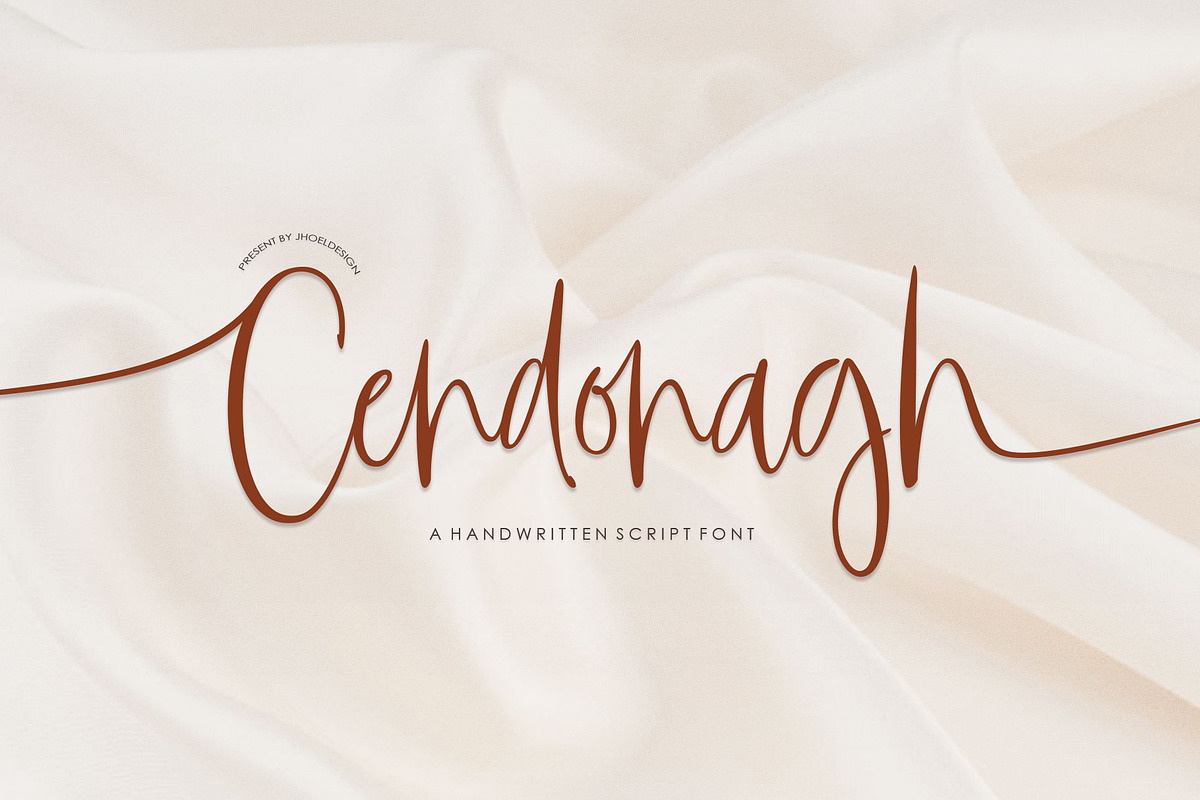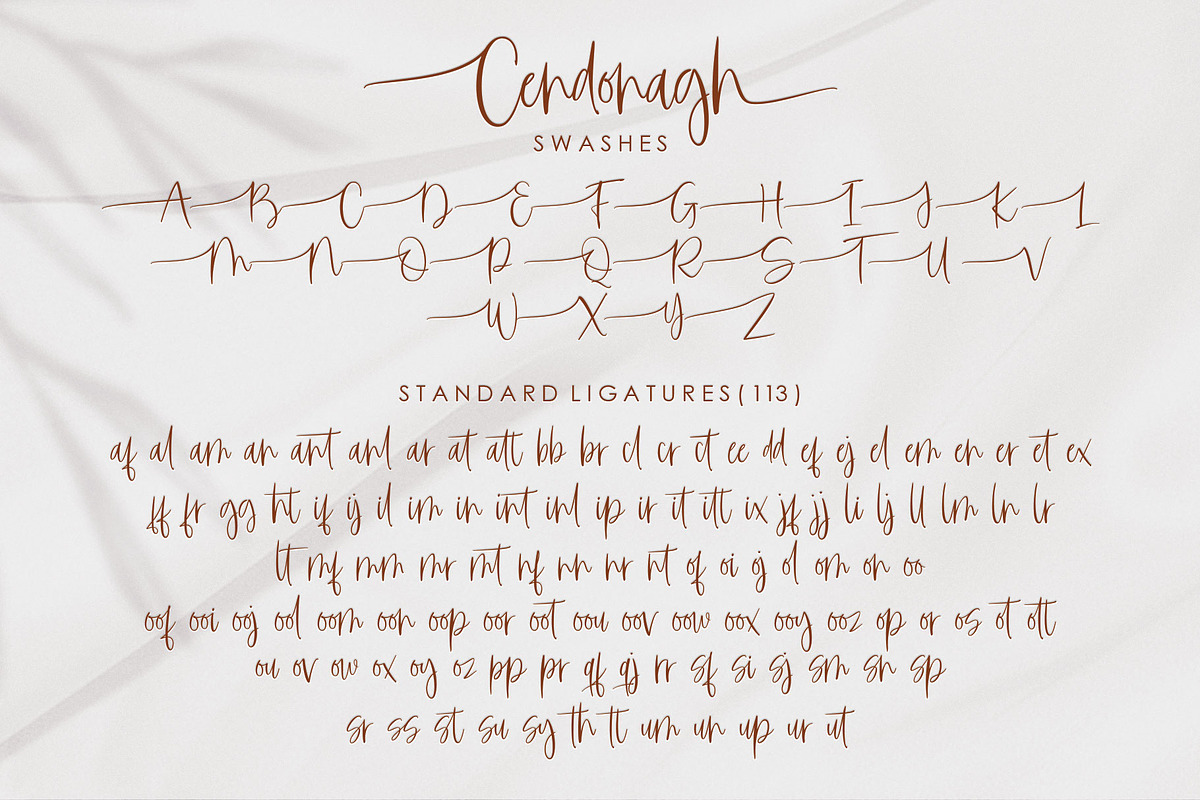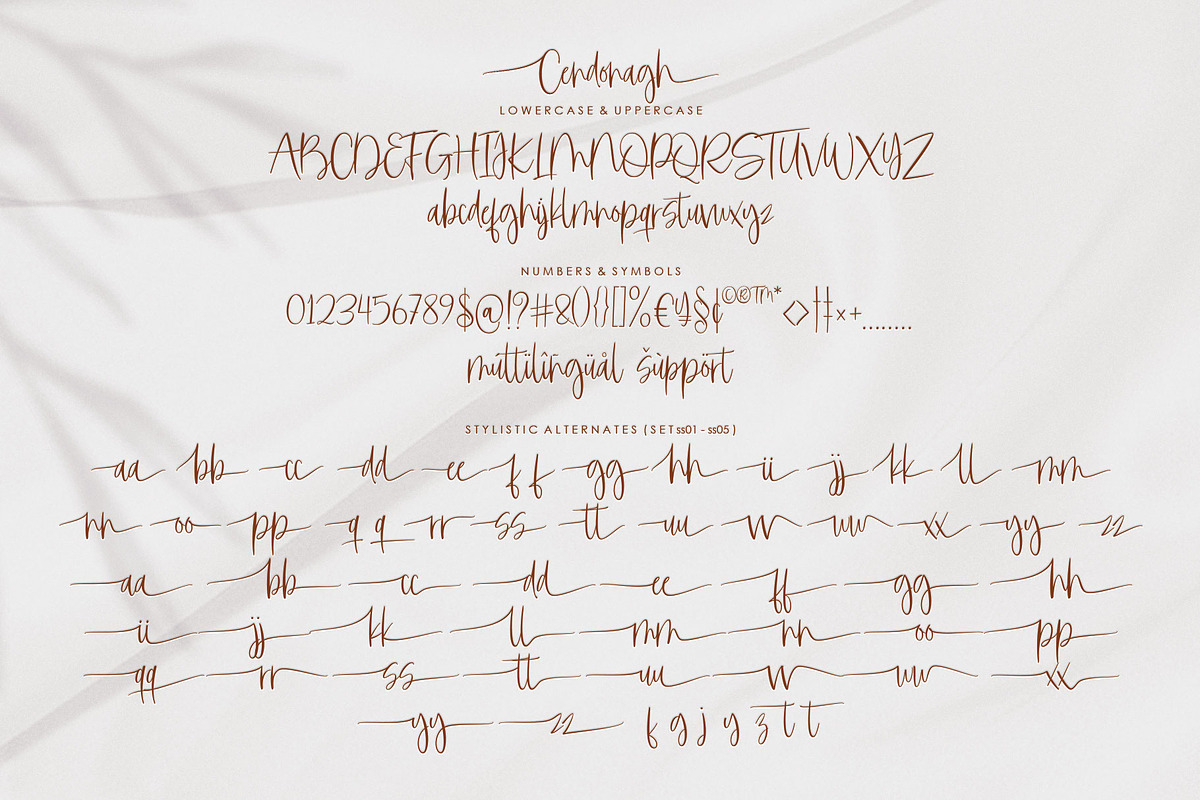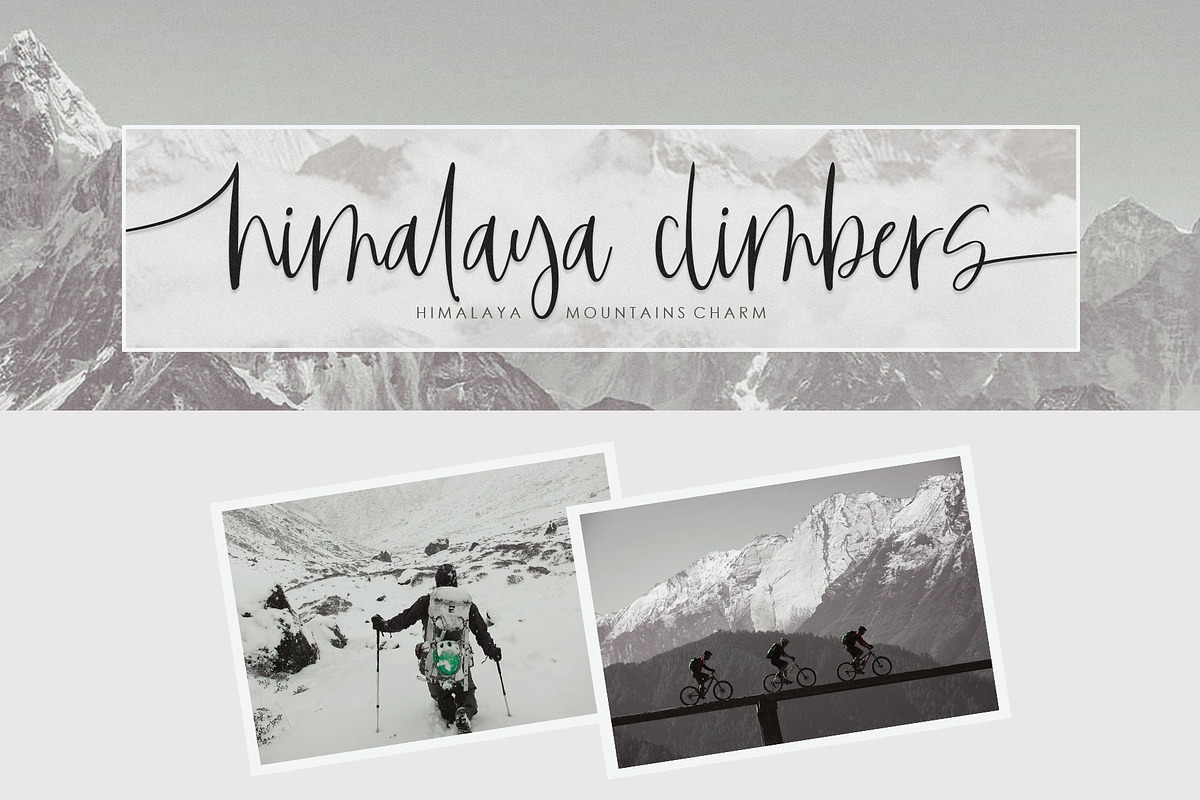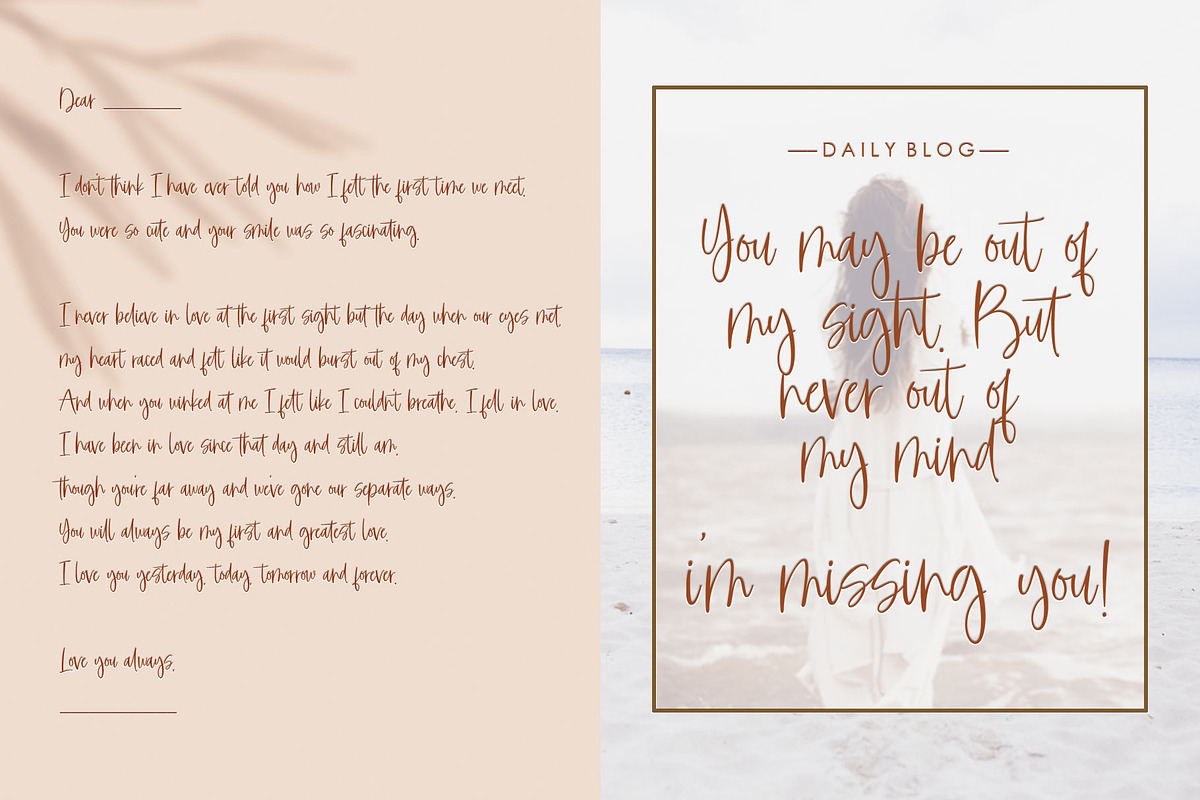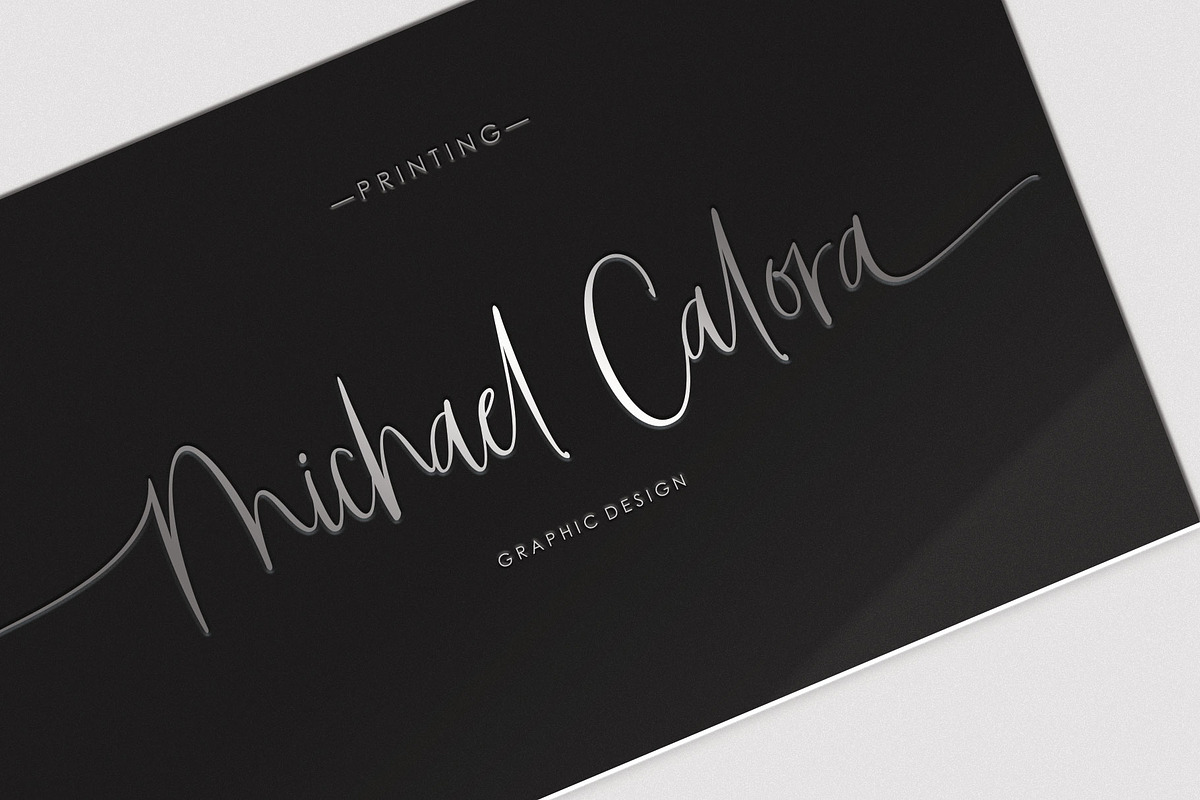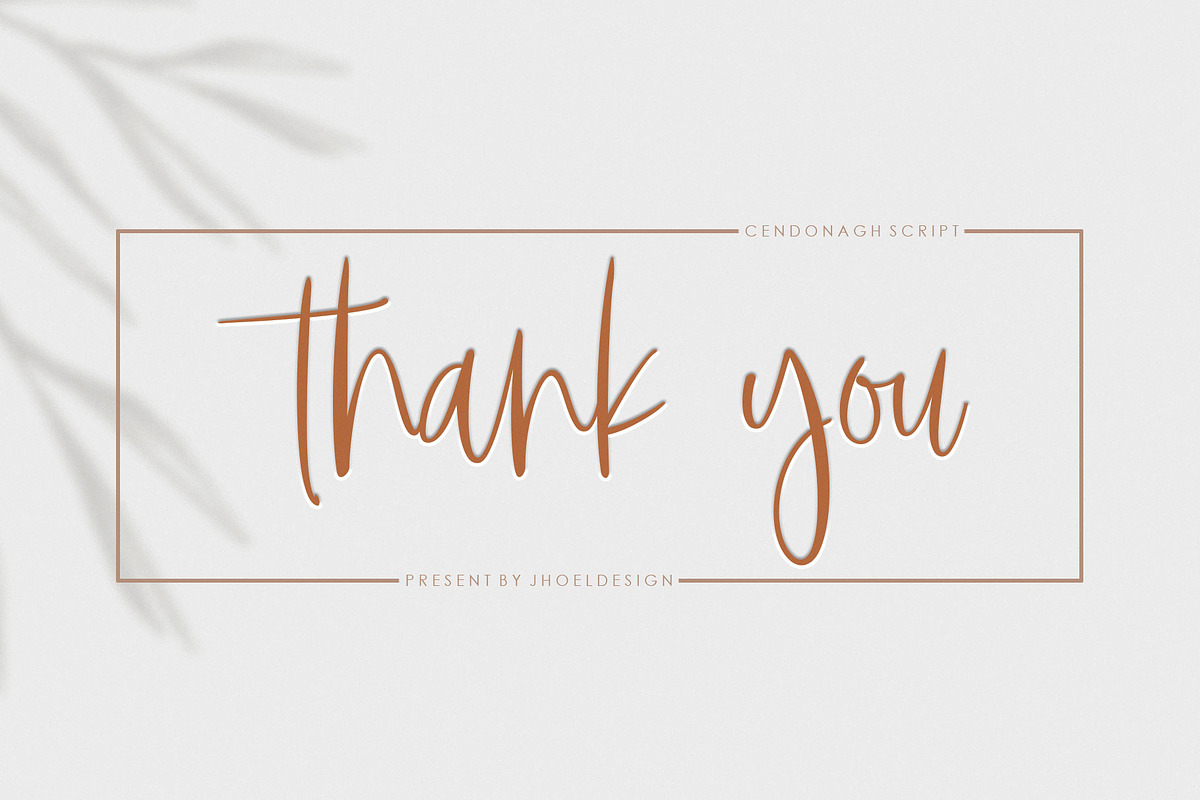
Cendonagh | Modern Script
Cendonagh includes the full set of upper and lower case letters, multilingual symbols, numbers, and punctuation.
Also included : 113 Standard ligatures, stylistic alternates set (initial and final letters), and swashes. This is perfect for your various design needs, such as logos and branding, social media posts, advertisements, business cards, product design etc.
Features Basic Latin A-Z and a-z Numbers Symbols & Multilingual Support